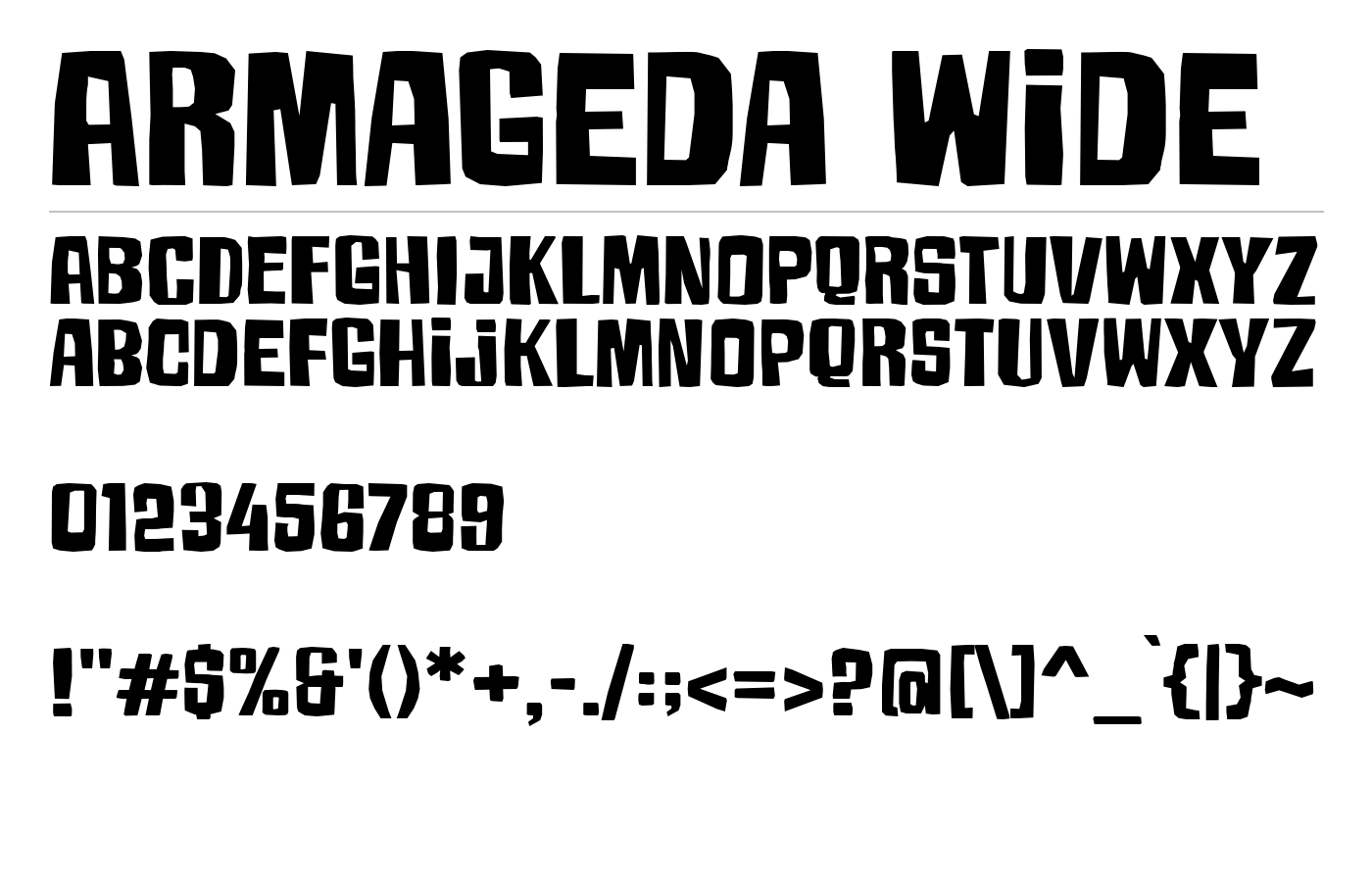
Armageda Wide is a bold, wide sans serif font with a playful and slightly irregular design that gives it a hand-crafted feel. Its tall, blocky letterforms with uneven stroke widths and quirky angles make it perfect for eye-catching headlines, posters, and branding that wants to convey energy and uniqueness. This font works best for creative projects seeking a strong, fun, and informal personality.
Armageda Wide Font
About Armageda Wide Font